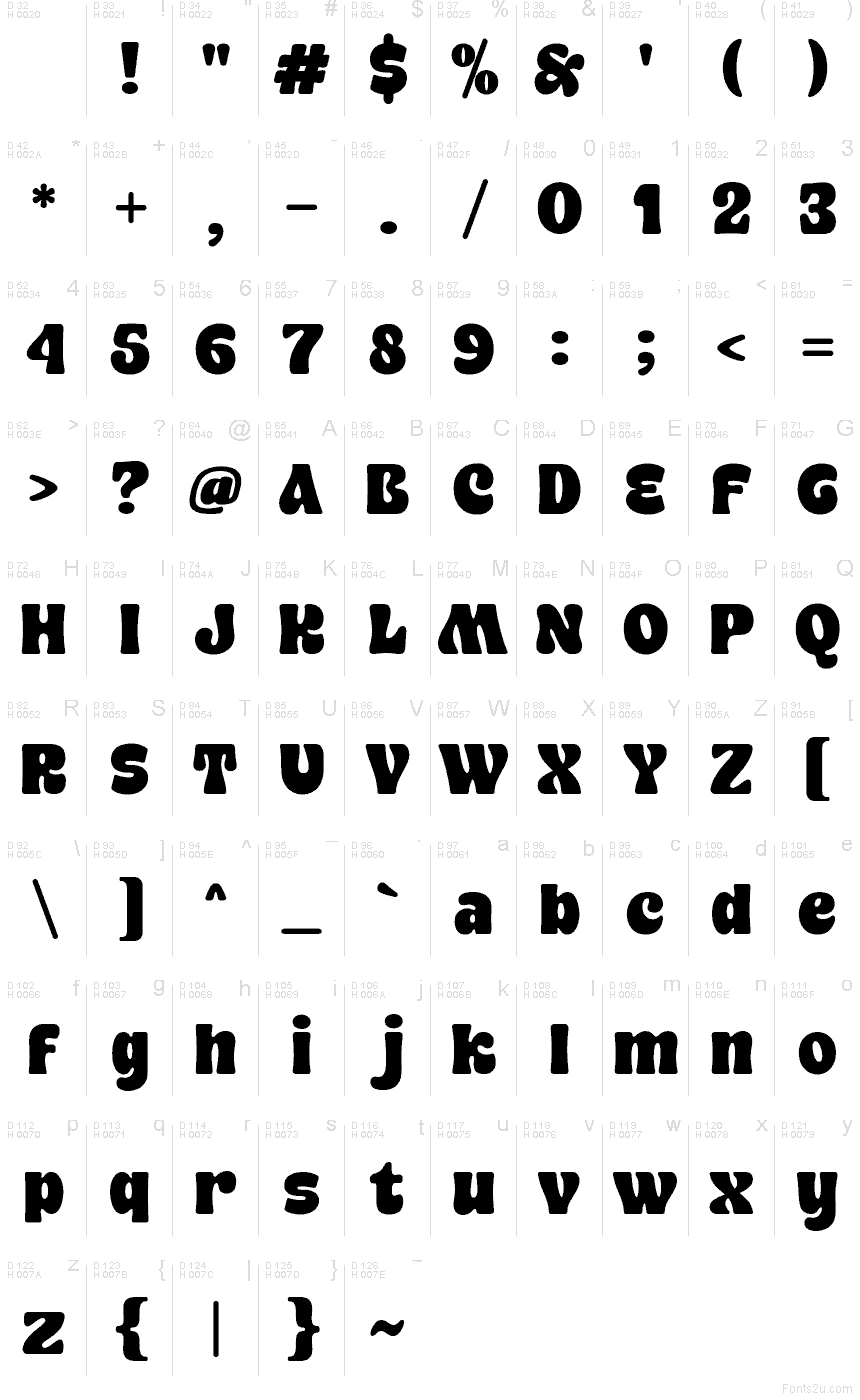
Bakso Menu
Bakso Menu font by Burhan Afif of HansCo Studio pours on the fun with chunky, puffed-up letterforms that feel like soft vinyl stickers—bold, bouncy, and a little melty at the edges. It’s a free groovy font, and the typeface’s tight rhythm and heavy weight keep words loud and instantly readable, even when you stack lines or curve them into a badge.
Using Bakso Menu shines on restaurant and café menus, food-truck branding, snack packaging, sticker designs, merch tees, playful posters, and social media promos. Set it big so the squishy shapes can breathe, then pair it with a clean geometric sans for prices, details, and longer copy—this free font does the headline work.